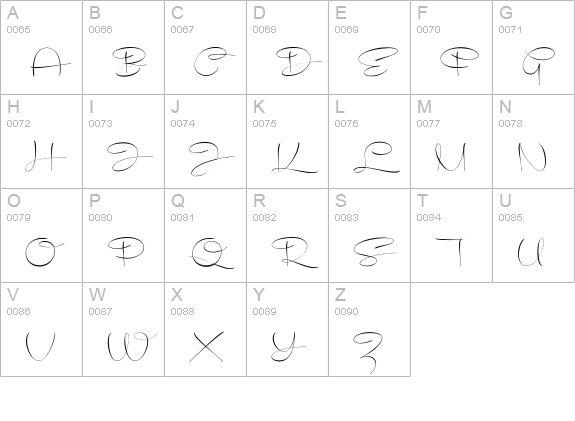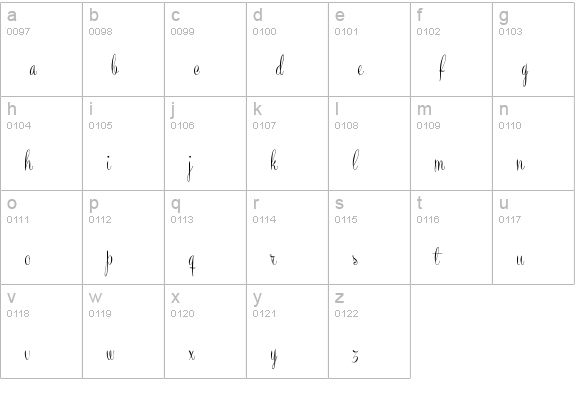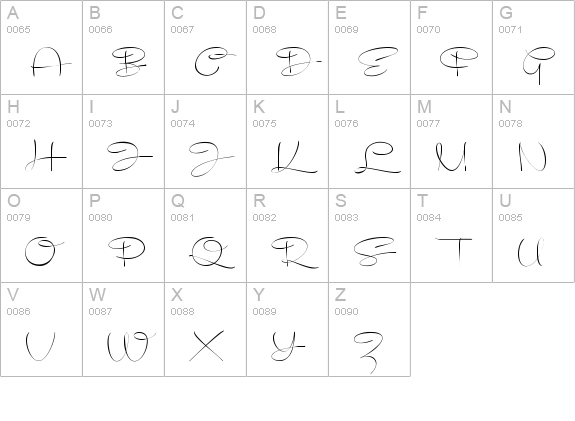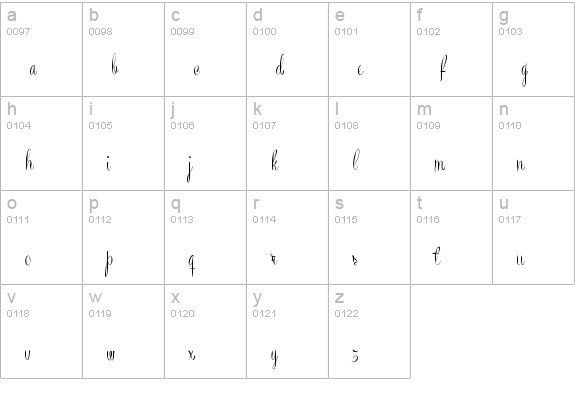
Recorda Script Personal Use Only Font Details
Recorda Script Personal Use Only font is a stunningly beautiful handwritten script font that exudes elegance and sophistication. With its fluid strokes and graceful curves, this font is perfect for adding a touch of charm and refinement to your designs. Designed with the utmost care and attention to detail, Recorda Script Personal Use Only font is a true work of art. Each letter is meticulously crafted to create a seamless flow, making it a pleasure to read and use in any project. The versatility of this font is truly remarkable. Whether you're designing wedding invitations, branding materials, logos, or simply adding a personal touch to your social media posts, Recorda Script Personal Use Only font will elevate your work to new heights. And the best part? It's free! Yes, you read that right. Recorda Script Personal Use Only font is freely available to download at FontsMarket.com. You can enjoy the beauty and elegance of this font without having to spend a single penny. So why wait? Download Recorda Script Personal Use Only font today and let your creativity soar. Whether you're a professional graphic designer or just someone who loves to dabble in design, this font is sure to become a favorite in your collection. Don't miss out on this incredible opportunity to enhance your projects with a font that combines style, grace, and affordability.